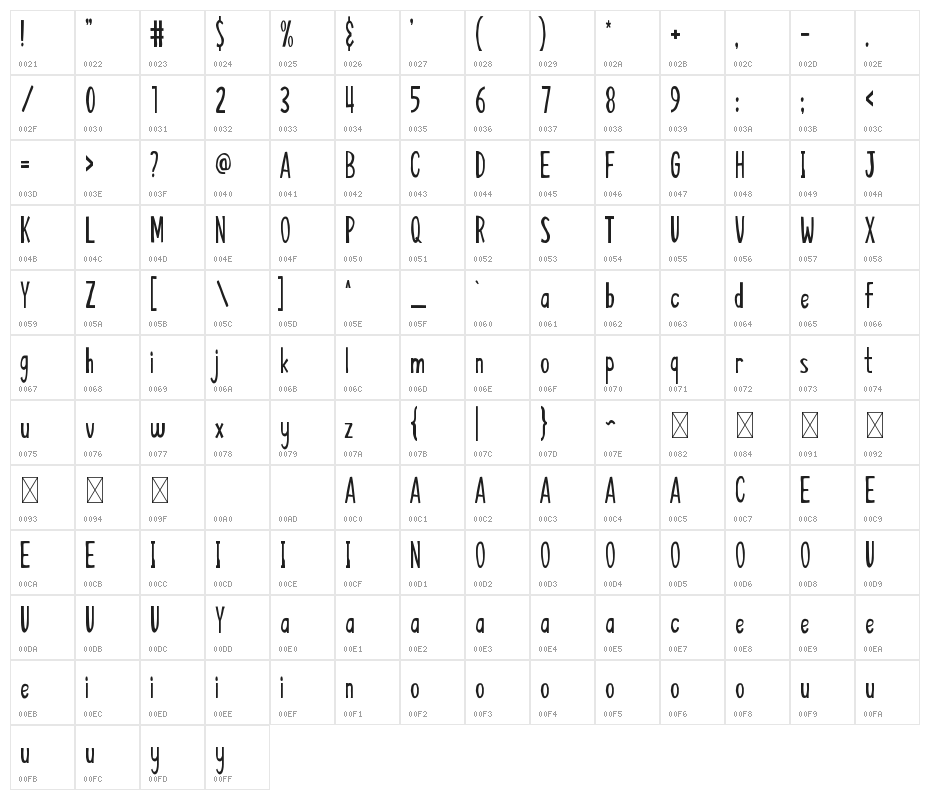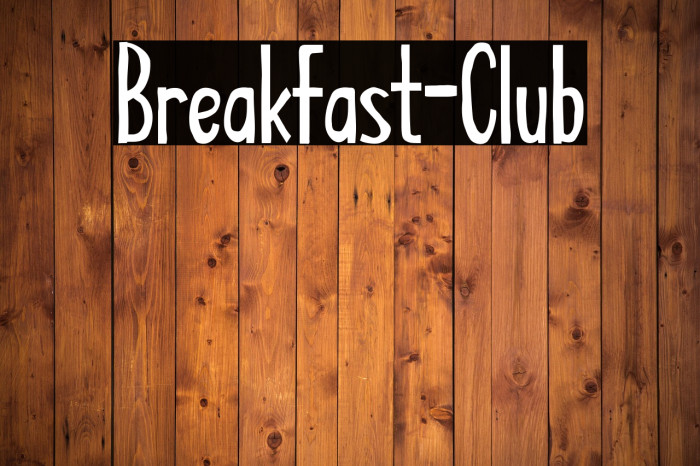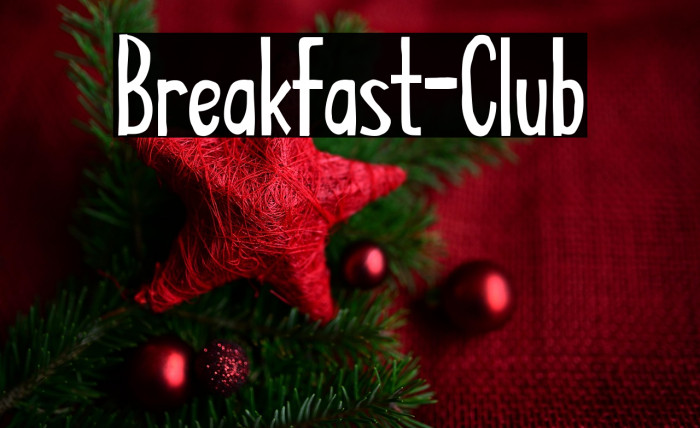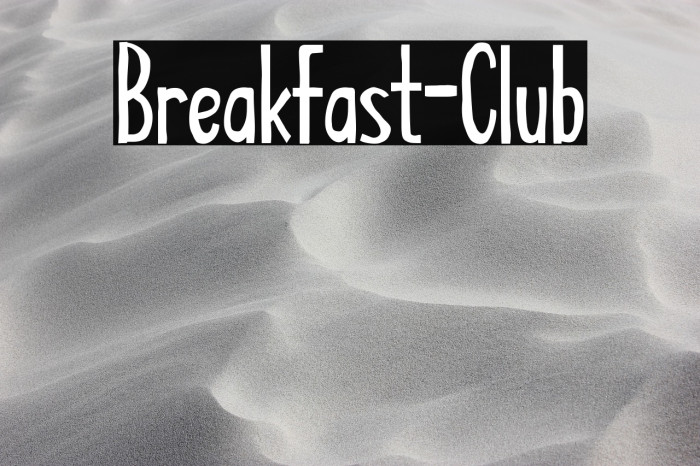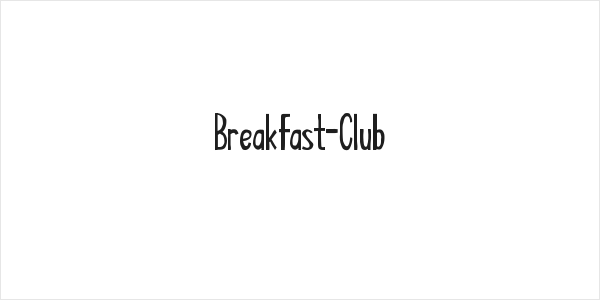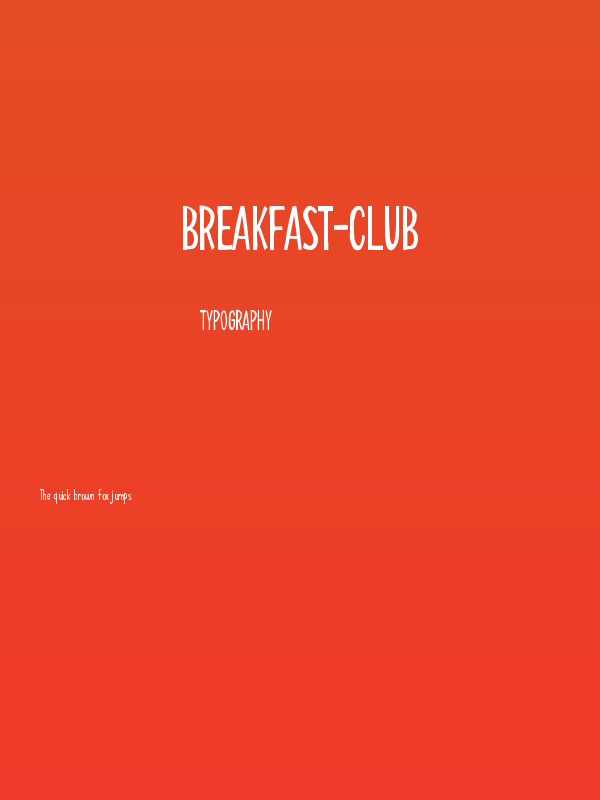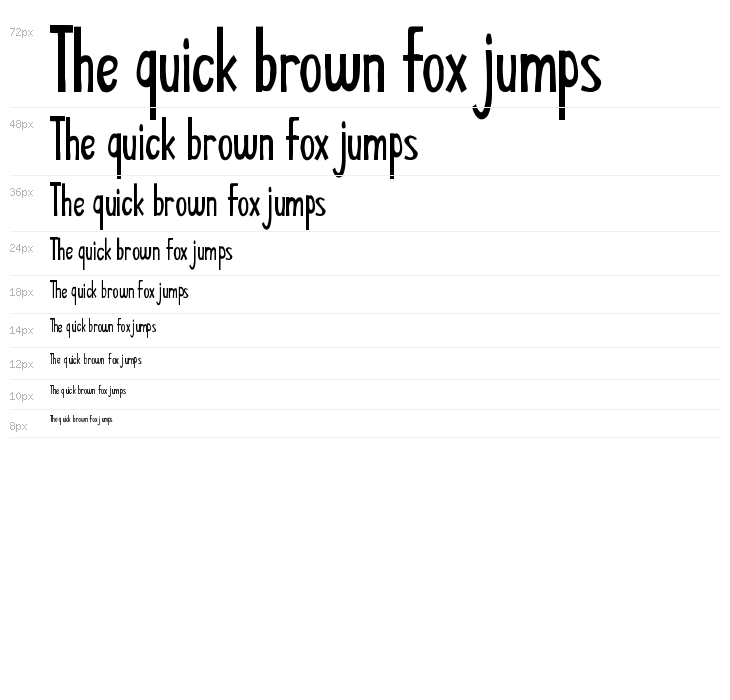
Breakfast-Club Font
Breakfast-Club Description
This font features a playful and informal style with a hand-drawn appearance. The letters are slightly irregular, giving it a whimsical and approachable feel. The uppercase characters are tall and narrow, while the lowercase letters maintain a consistent height, contributing to its casual aesthetic. The numbers and special characters follow the same playful design, making it versatile for various creative projects. The strokes are uniform in thickness, providing a clean and modern look without high contrast. This font is ideal for projects that require a friendly and inviting touch.
| Proposed Projects | Great for children's books, casual invitations, greeting cards, and playful branding. |